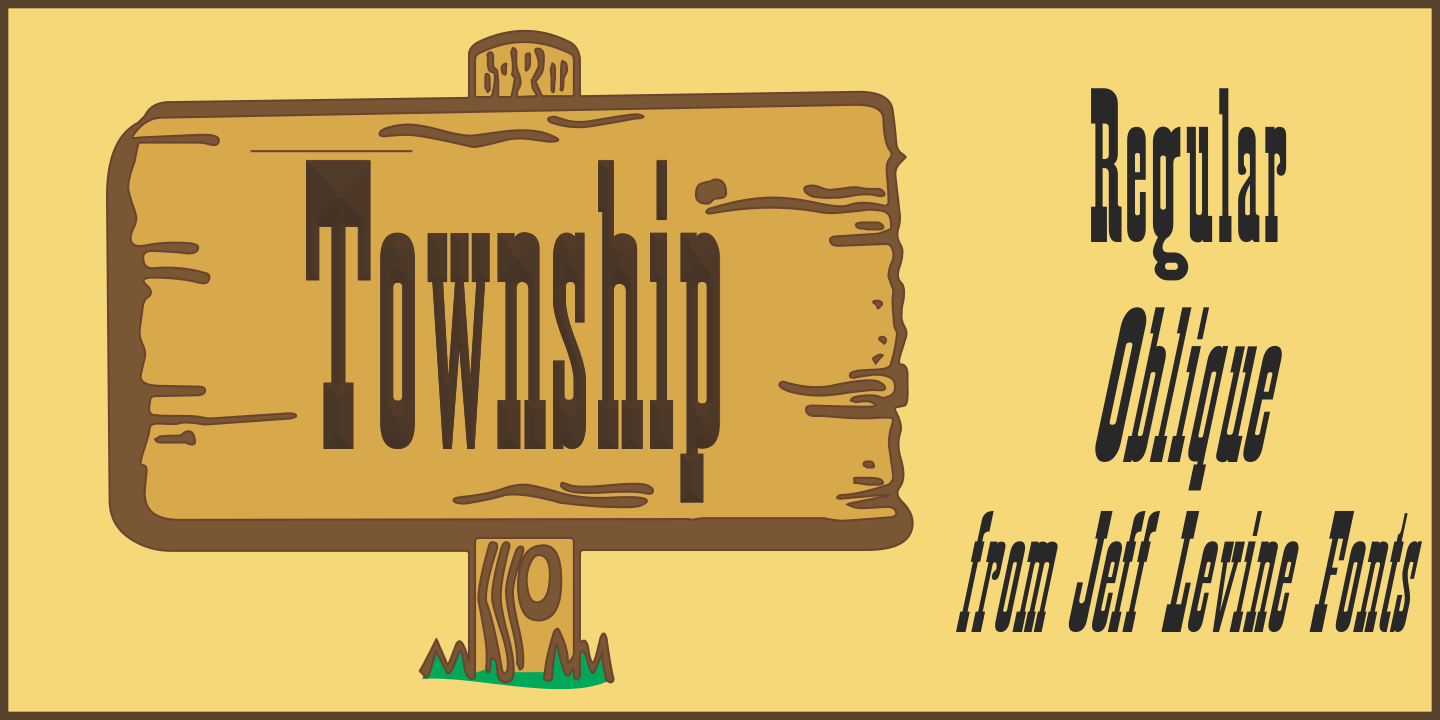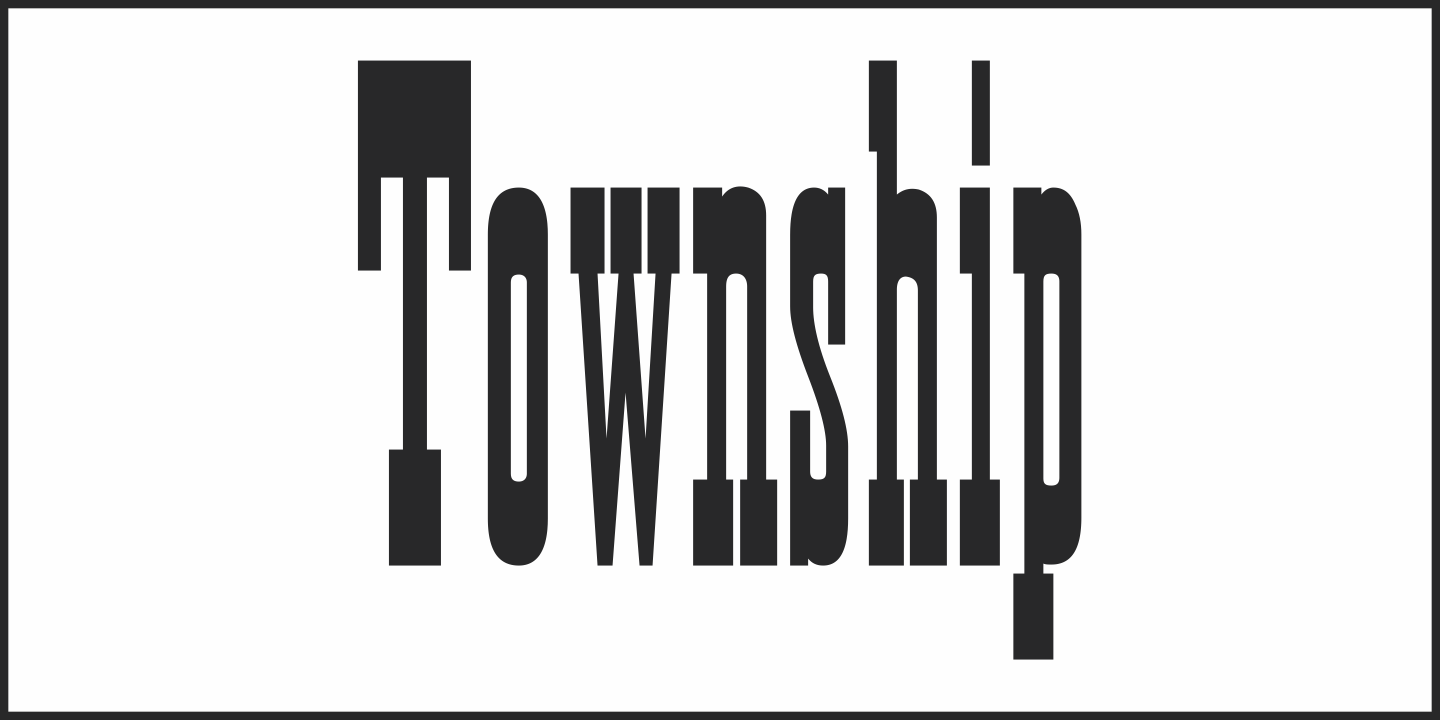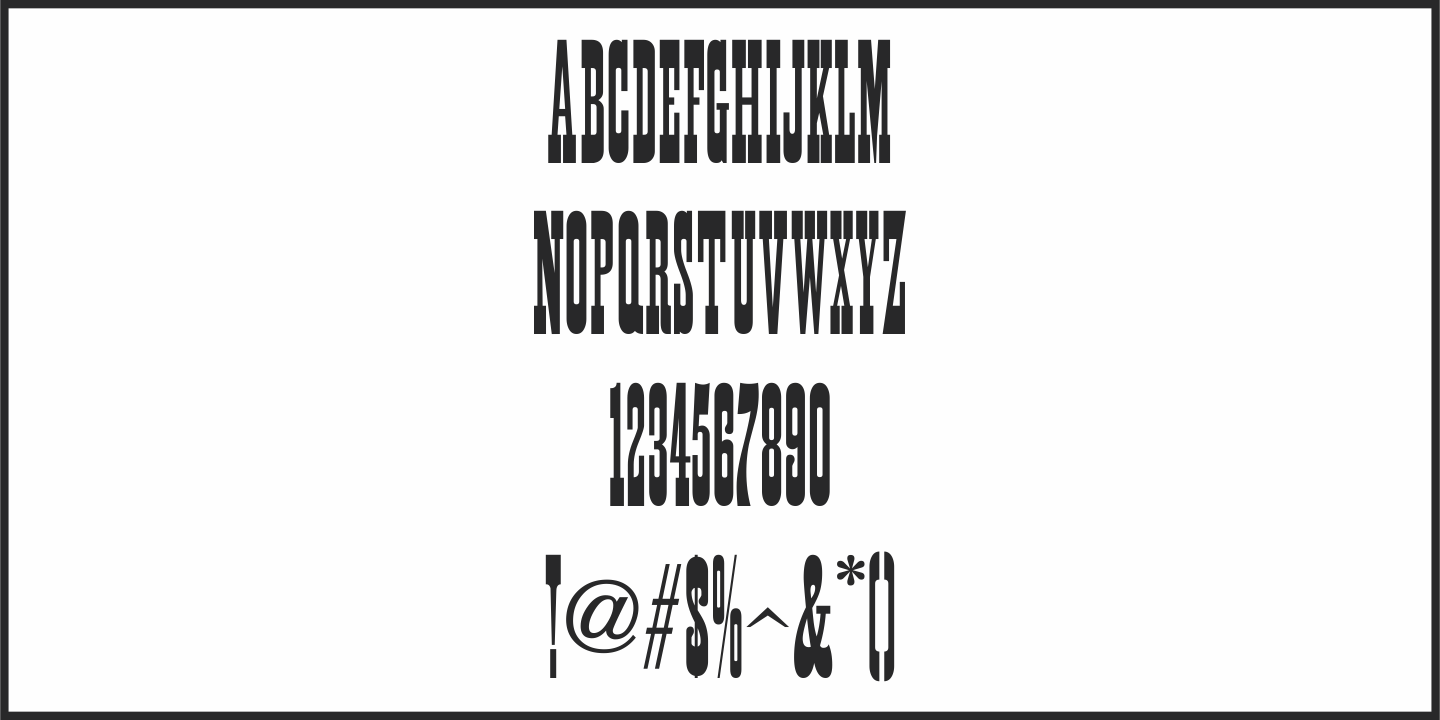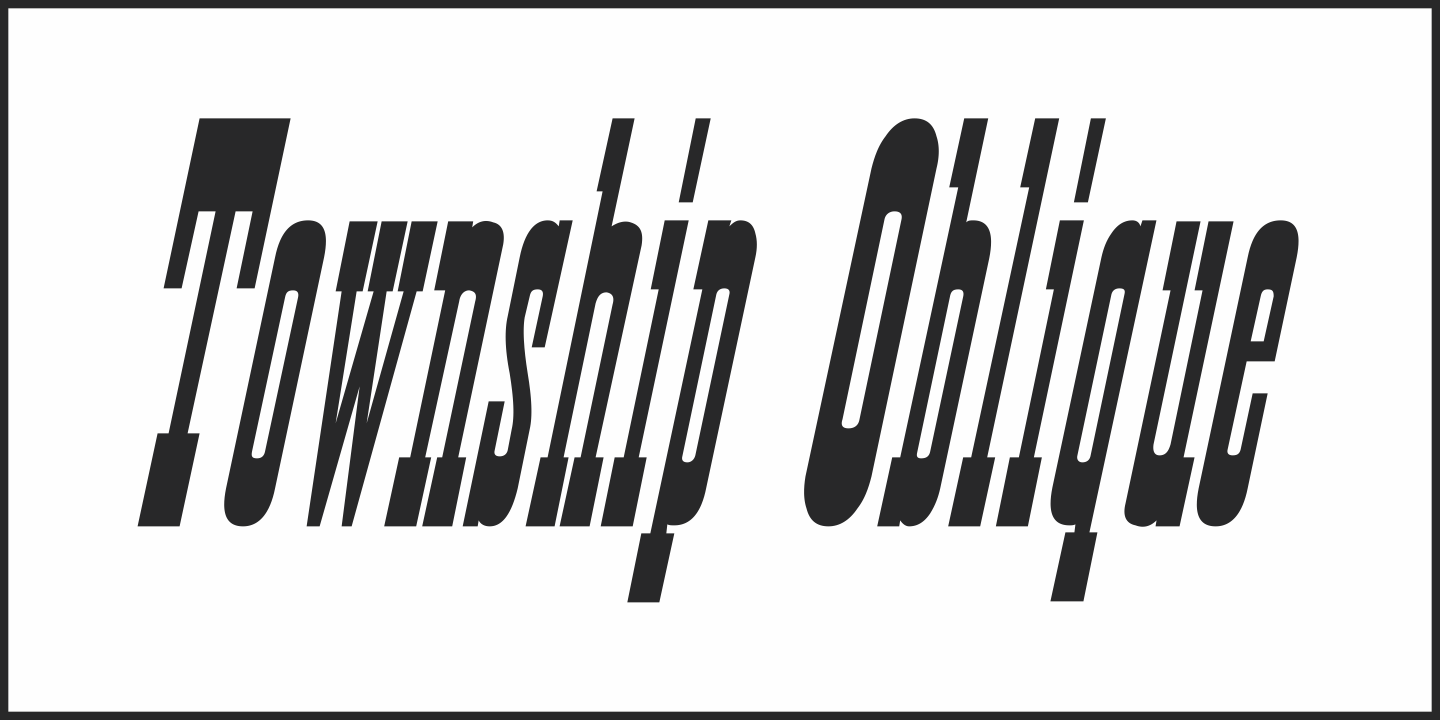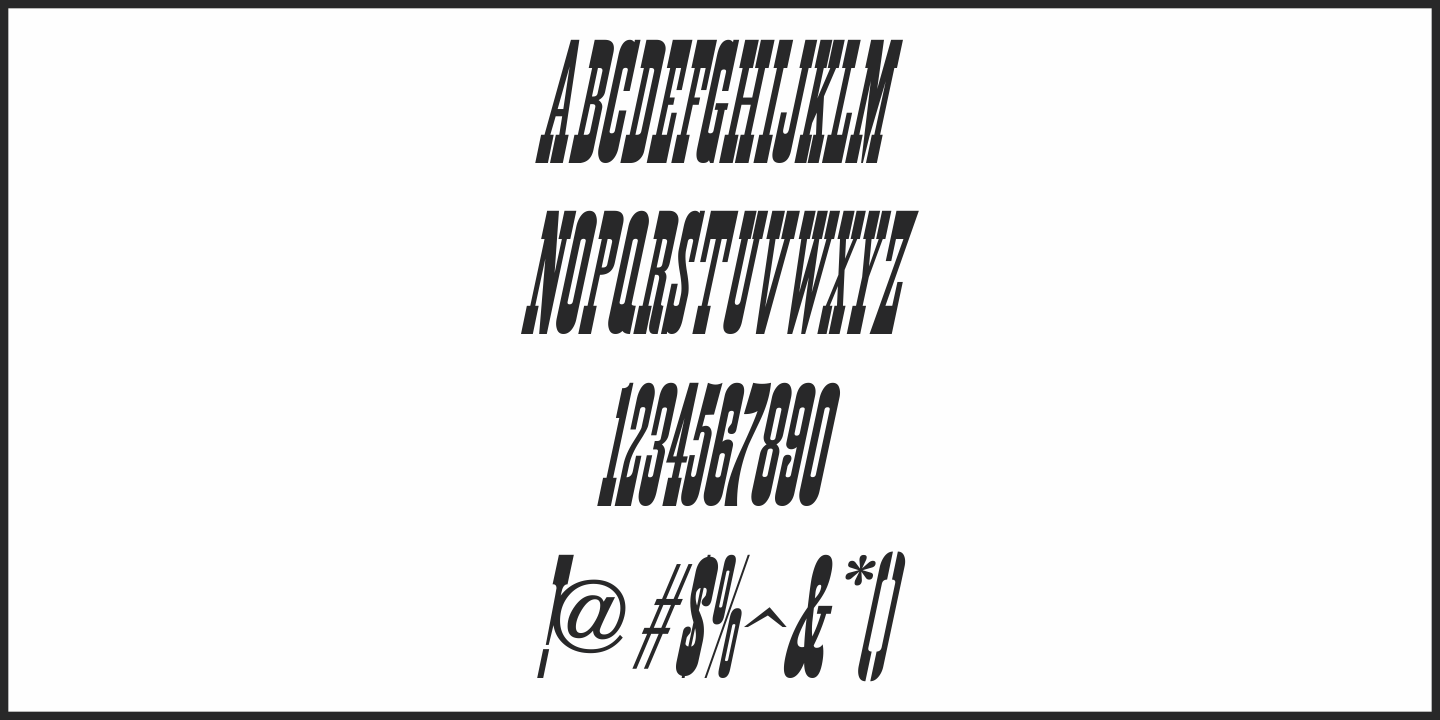
Township
Township JNL is based on French Antique Condensed [a classic wood design] and is available in both regular and oblique versions.
Reminiscent of Old West wanted posters and circus broadsides, this ultra-condensed typeface allows for more word copy to fit into a single line’s space.